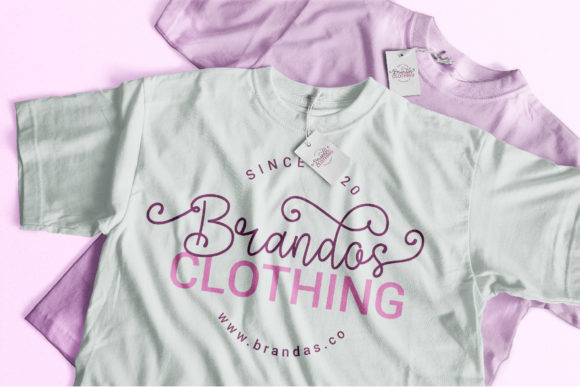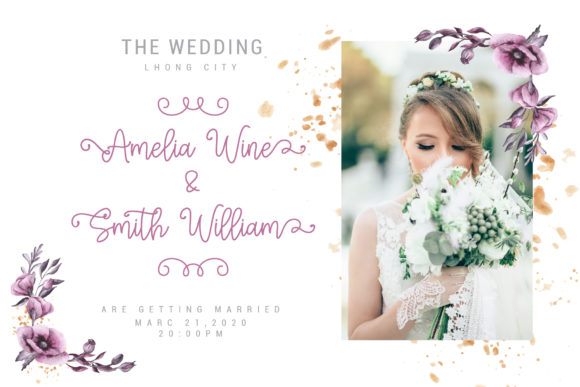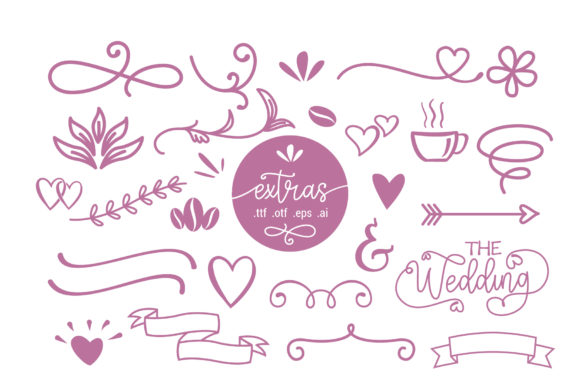
Introduction to Samink Font
Fall in love with Samink.
This luxurious and playful script is the ideal font for adding a fancy playfulness to your next design idea .
Key Features of Samink Font
Why Choose Samink Font?
Samink Font offers exceptional quality and versatility, making it a valuable addition to your design toolkit. Whether you’re creating for personal projects or commercial use, Samink Font delivers professional results.